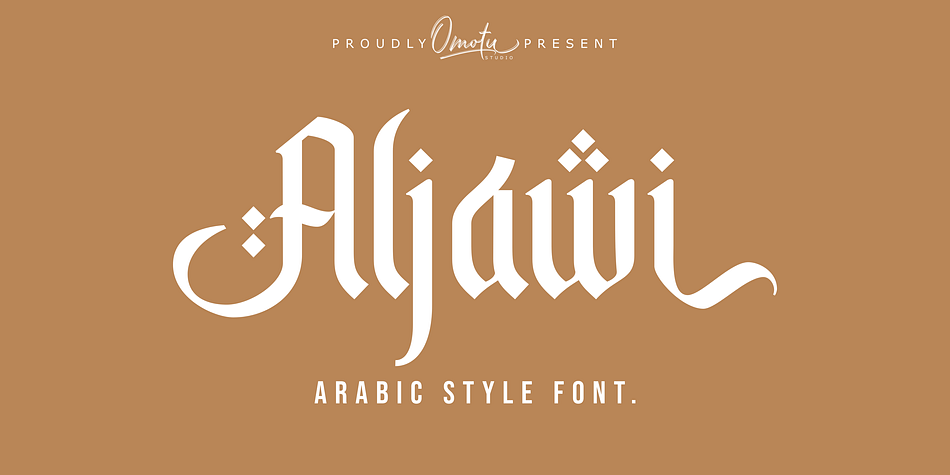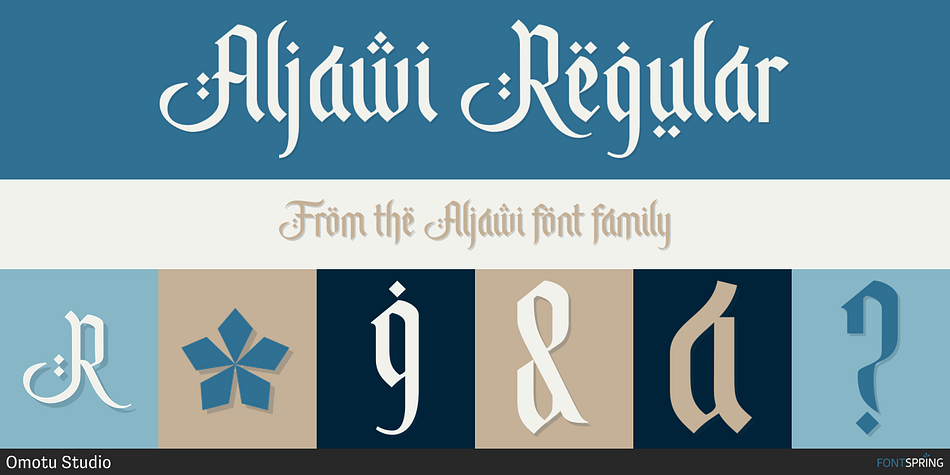
Aljawi Regular
Aljawi is an exotic font family published by Omotu Studio.
Aljawi is an arabic style font. This font very usable for designing all kind of graphics design related to Islamic Contents. Aljawi font is suitable for heading, branding, logotype, apparel, T-shirt, Hoodie, product packaging, quotes, flyer, poster, book cover, advertising, etc.